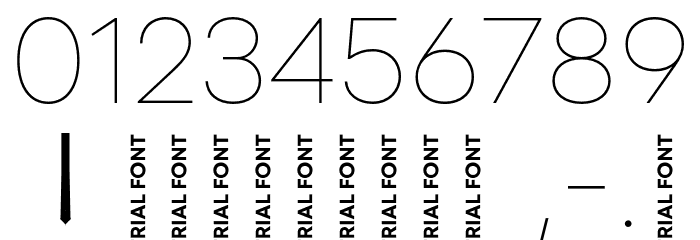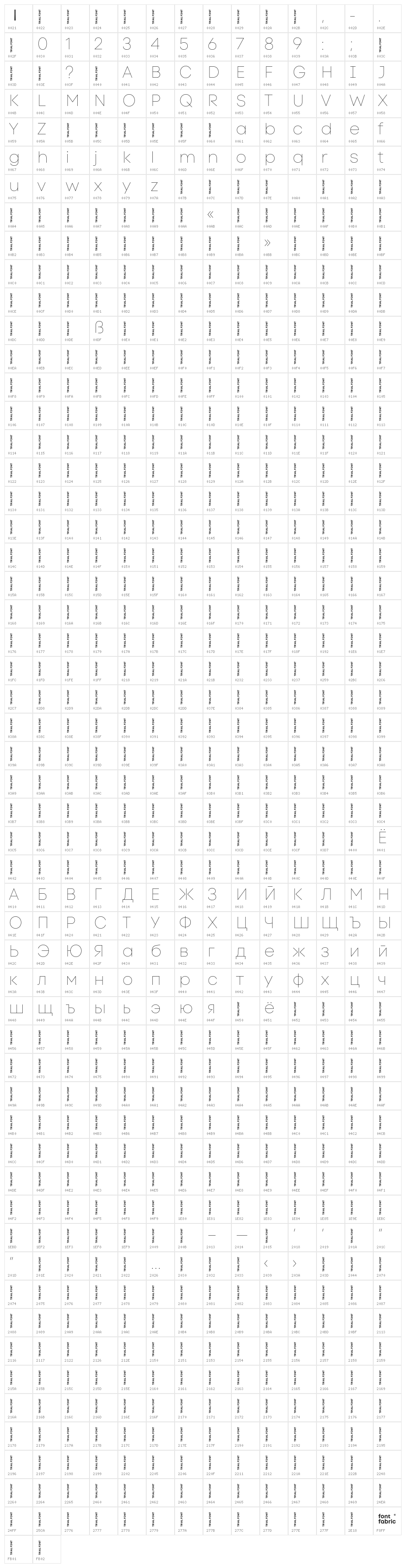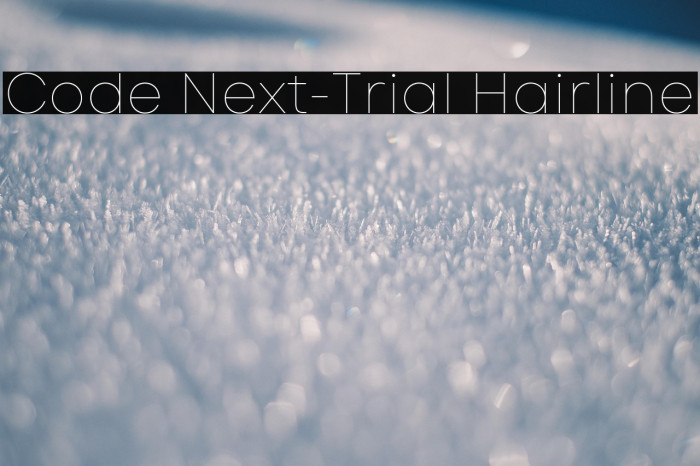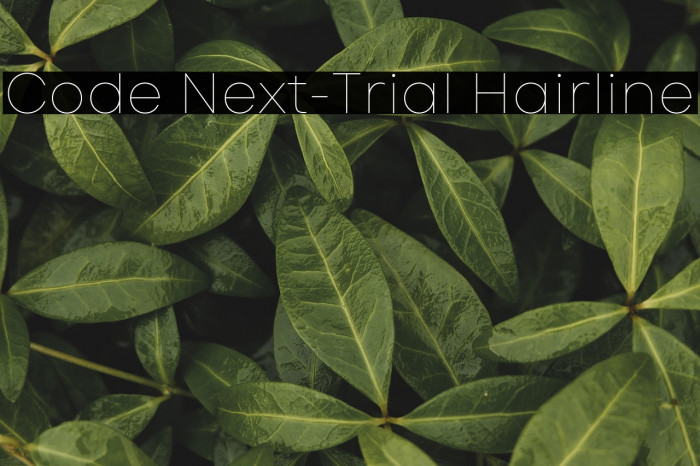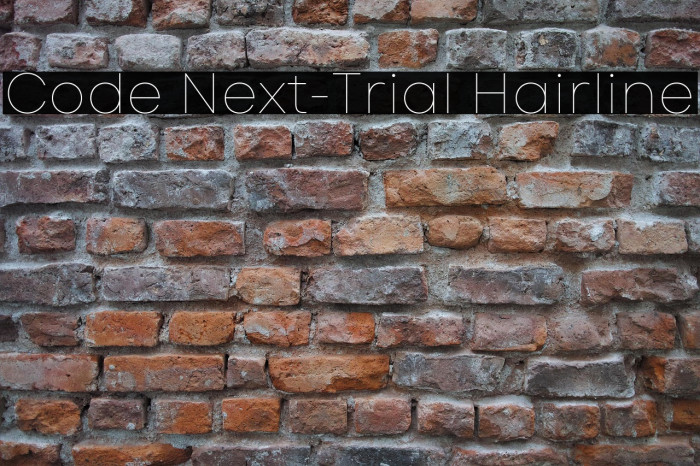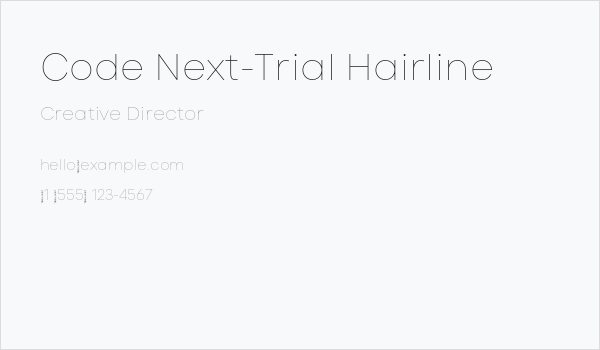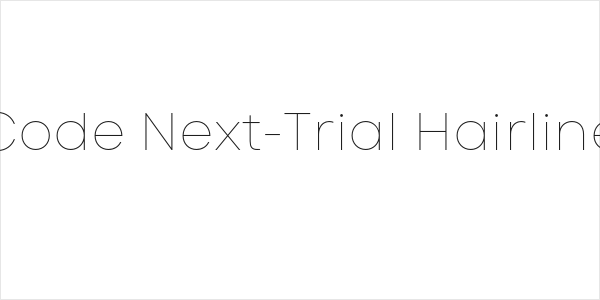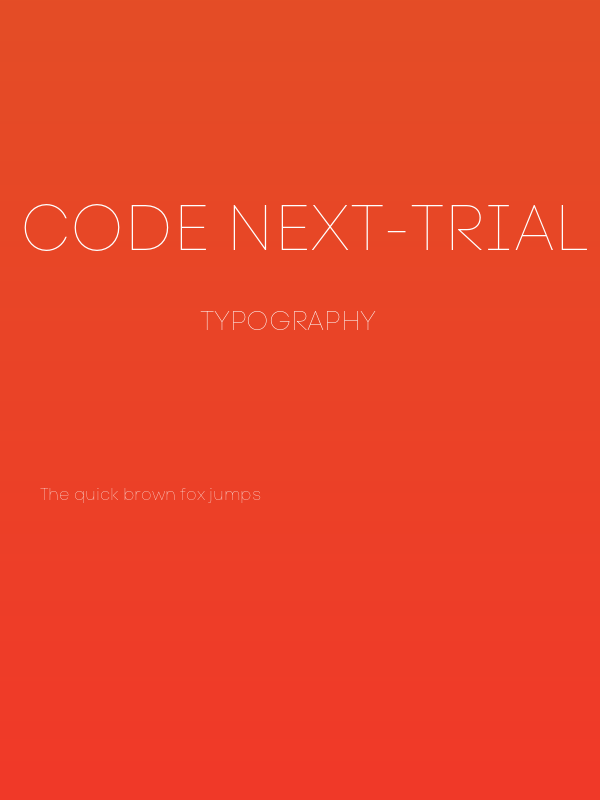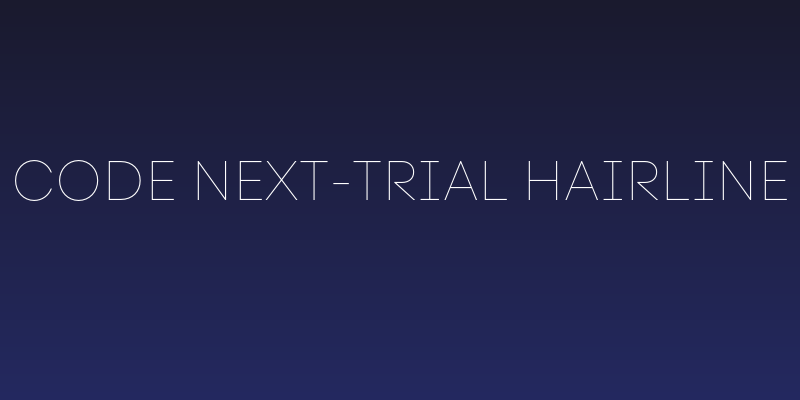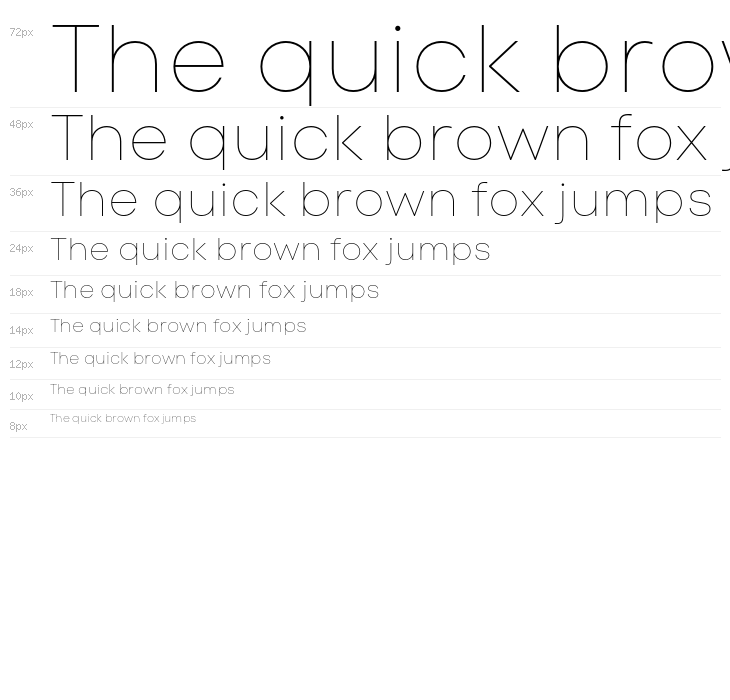
Code Next-Trial Hairline Font
Code Next-Trial Hairline Description
This font features a sleek, minimalistic design with thin, uniform strokes that convey a sense of modernity and elegance. The characters are clean and geometric, with a consistent line weight that gives it a refined and sophisticated appearance. The uppercase and lowercase letters maintain a harmonious balance, while the numerals and special characters are designed with the same precision and clarity. This font's simplicity and elegance make it versatile for various design applications.
| Proposed Projects | Ideal for modern branding, minimalist design projects, fashion magazines, and tech-related content. |